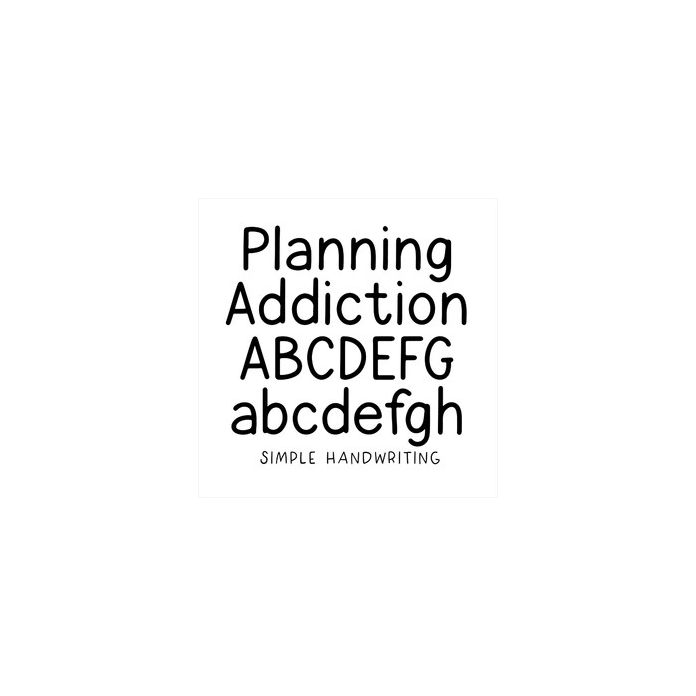
BFC Planning Addiction Simple Clean Planner Handwriting Font
Planning Addiction is a clean and simple handwritten font. Perfect for Goodnotes and planning.